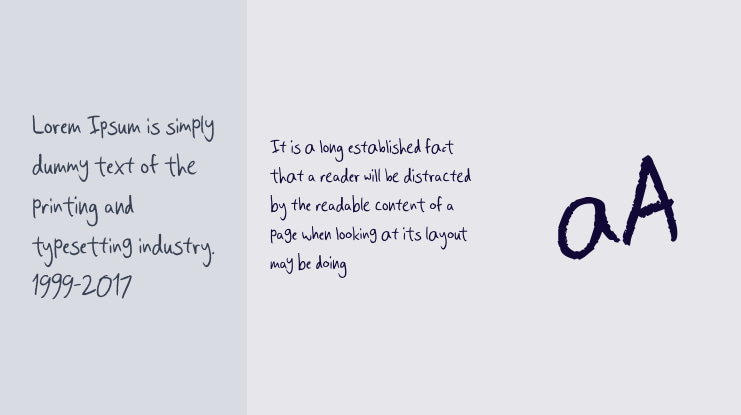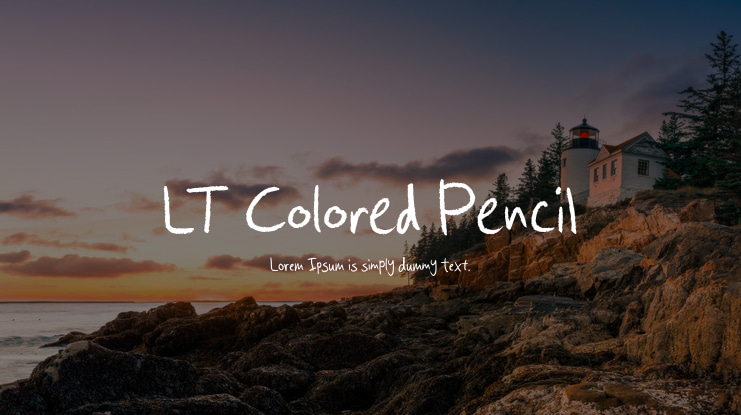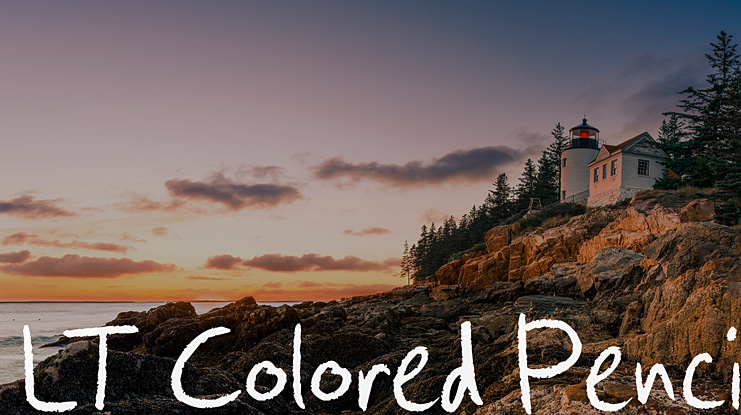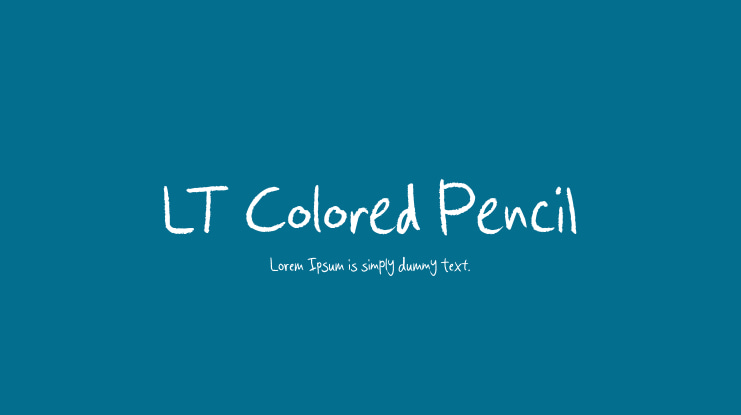
LT Colored Pencil Font
Dan P. Lyons
Some font to base off what you'd write with a colored pencil. Contextual alternates give the handwriting typeface an accurate appearance of how words are written.